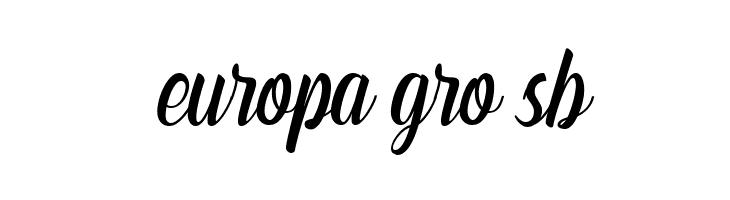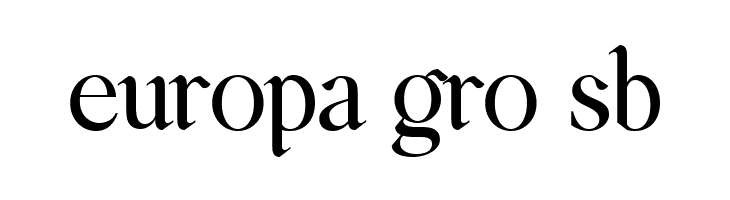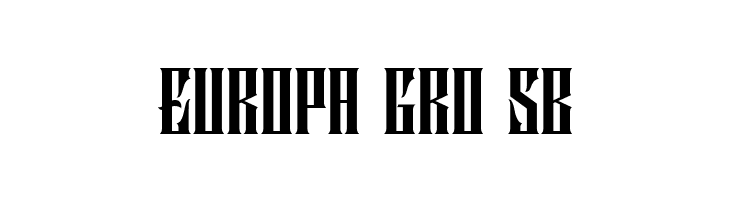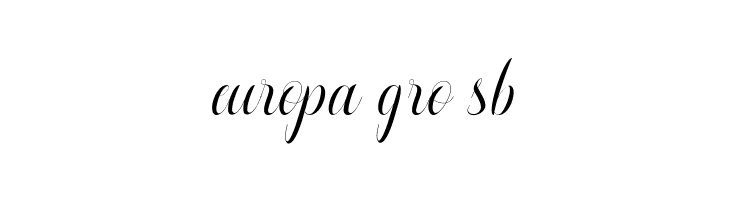
An elegant, cursive handwritten font with a fluid and artistic style.
A graceful and elegant cursive script with medium contrast.
A playful, casual handwritten font with fluid strokes and a consistent slant.
An elegant serif font with tall, slender letterforms and sharp serifs.
A dynamic and elegant script font with smooth, flowing curves.
A modern, decorative font with a striped, textured design.
A classic serif font with elegant lines and high contrast, perfect for sophisticated designs.
A bold, Gothic-inspired font with intricate, angular details.
An elegant script font with flowing, interconnected strokes and luxurious flourishes.